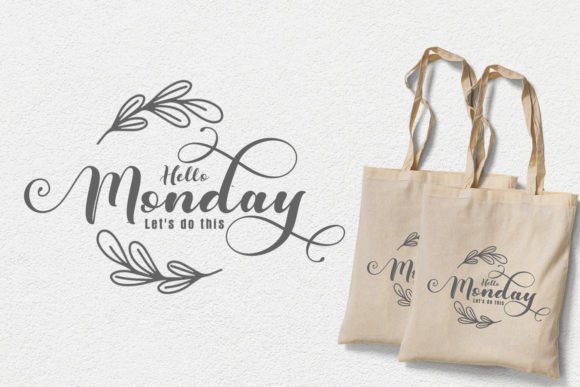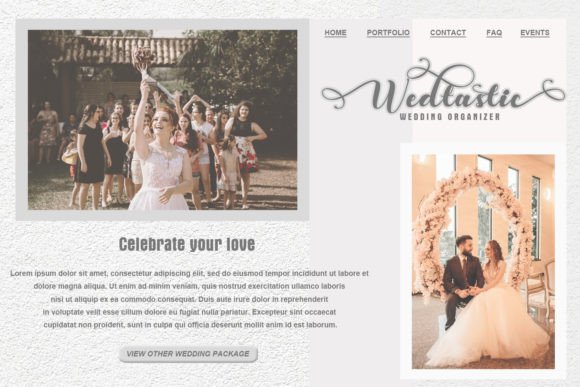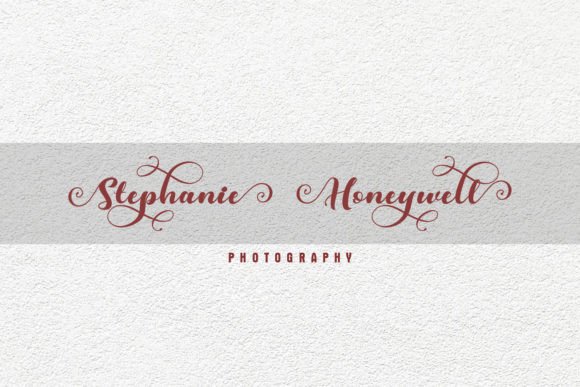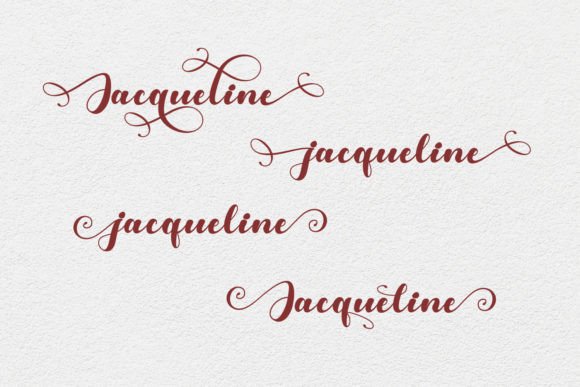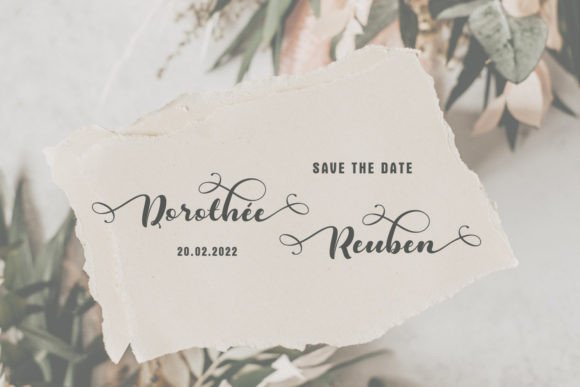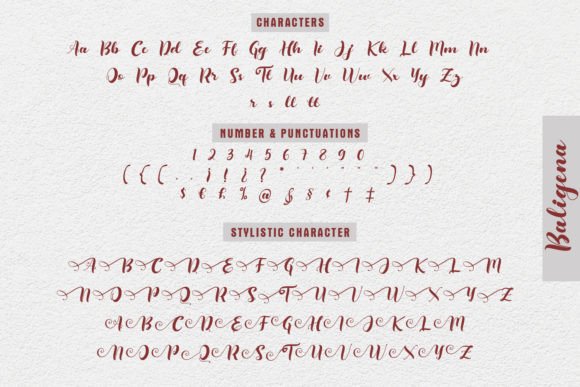
Introducing Baligena Font: A Beautiful Script Font for Romantic Designs
Are you looking for a font that can add a touch of elegance and romance to your designs? Look no further than Baligena Font! This stunning script font is perfect for creating beautiful and eye-catching designs that exude love, care, and sophistication. In this article, we’ll explore the features and benefits of Baligena Font, and how it can be used to elevate your design projects.
What is Baligena Font?
Baligena Font is a beautiful script font that is designed to add a touch of romance and elegance to your designs. It comes with a range of alternative swash characters, which allow you to customize your text and create unique and eye-catching designs. The font’s contrasting thick and thin lines give it a distinctive look that is perfect for creating designs that are both stylish and sophisticated.
Key Features of Baligena Font
- Beautiful Script Font: Baligena Font is a stunning script font that is perfect for creating romantic and elegant designs.
- Alternative Swash Characters: The font comes with lots of alternative swash characters, which allow you to customize your text and create unique designs.
- Contrasting Thick and Thin Lines: The font’s contrasting thick and thin lines give it a distinctive look that is perfect for creating designs that are both stylish and sophisticated.
- PUA Encoded: Baligena Font is PUA encoded, which means you can access all the glyphs and ligatures with ease.
Uses of Baligena Font
Baligena Font is a versatile font that can be used for a wide range of design projects. Here are some of the most popular uses of this beautiful font:
- Logo Branding: Baligena Font is perfect for creating elegant and sophisticated logos that exude love and care.
- Wedding Invitations: The font’s romantic and elegant look makes it perfect for creating beautiful wedding invitations.
- Crafting: Baligena Font is also great for crafting projects, such as creating handmade cards, gift tags, and other paper crafts.
- Stationery: The font can also be used to create beautiful stationery, such as letterheads, journals, and notebooks.
Benefits of Using Baligena Font
There are many benefits to using Baligena Font in your design projects. Here are some of the most significant advantages:
- Elegant and Sophisticated Look: Baligena Font adds an elegant and sophisticated touch to your designs, making them perfect for romantic and special occasions.
- Customizable: The font’s alternative swash characters allow you to customize your text and create unique designs.
- Easy to Use: Baligena Font is PUA encoded, which means you can access all the glyphs and ligatures with ease.
- Versatile: The font can be used for a wide range of design projects, from logo branding to wedding invitations and crafting.
Tips for Using Baligena Font
Here are some tips for using Baligena Font in your design projects:
- Use it for Headings: Baligena Font is perfect for headings and titles, as it adds an elegant and sophisticated touch to your text.
- Experiment with Swashes: Don’t be afraid to experiment with the font’s alternative swash characters to create unique and eye-catching designs.
- Pair it with Other Fonts: Baligena Font can be paired with other fonts to create a unique and stylish look.
| Font Name | Baligena Font |
| Author | Marchtwentype |
In conclusion, Baligena Font is a beautiful script font that is perfect for creating romantic and elegant designs. Its contrasting thick and thin lines, alternative swash characters, and PUA encoding make it a versatile and easy-to-use font that is perfect for a wide range of design projects. Whether you’re a designer, crafter, or DIY enthusiast, Baligena Font is a great addition to your font collection.